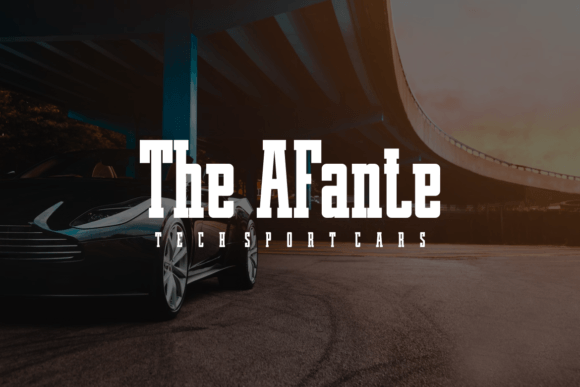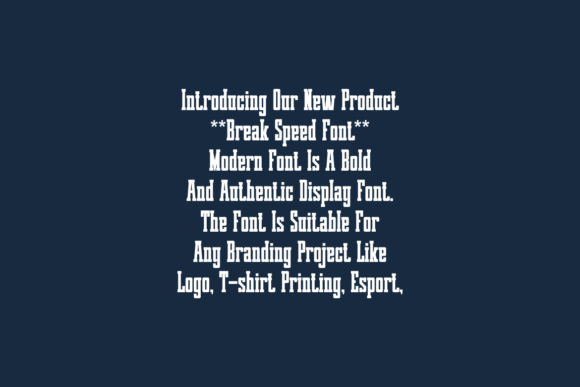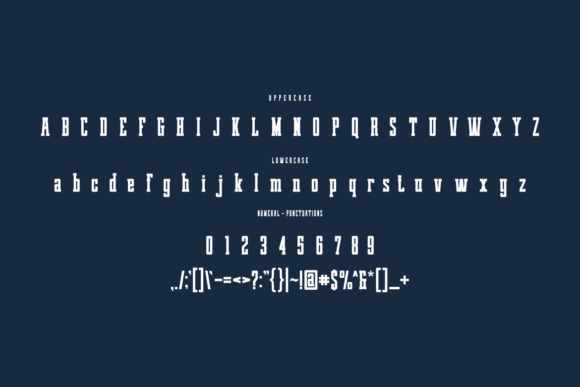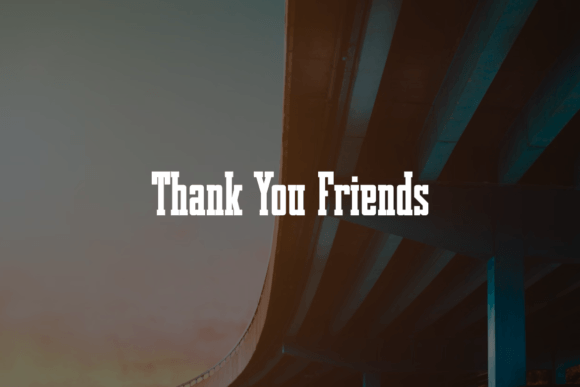
Unleash Your Creativity with BreakSpeed Font: The Ultimate Modern Display Font
Are you tired of using the same old fonts for your branding projects? Look no further! We are excited to introduce our new product, **BreakSpeed Font**, a modern display font designed to take your creative projects to the next level. With its bold and authentic style, BreakSpeed Font is perfect for any branding project, including logos, esports, and more.
What is BreakSpeed Font?
BreakSpeed Font is a carefully crafted display font that exudes confidence and modernity. Its unique design makes it stand out in a wide range of contexts, from digital platforms to print materials. Whether you’re a designer, craftsperson, or simply a DIY enthusiast, BreakSpeed Font is the perfect tool to add a touch of sophistication and style to your projects.
Key Features of BreakSpeed Font
- Bold and Authentic Style: BreakSpeed Font boasts a bold and authentic style that commands attention and makes a lasting impression.
- Versatility: This modern font is suitable for a wide range of applications, including logos, esports, posters, flyers, and more.
- Ease of Use: BreakSpeed Font is easy to read and works well in both digital and print formats.
- Unique Design: The font’s unique design elements make it stand out from the crowd, ensuring your projects look fresh and modern.
Who Can Benefit from BreakSpeed Font?
BreakSpeed Font is an excellent addition to any creative’s toolkit. Here are some professionals who can benefit from this modern display font:
- Graphic Designers: Add a touch of modernity to your branding projects, logos, and marketing materials.
- Esports Enthusiasts: Create bold and eye-catching logos, jerseys, and promotional materials for your esports team.
- Crafters and Makers: Use BreakSpeed Font to add a professional touch to your product labels, packaging, and marketing materials.
- Digital Artists: Incorporate BreakSpeed Font into your digital art projects, such as posters, flyers, and social media graphics.
Tips and Tricks for Getting the Most Out of BreakSpeed Font
- Experiment with Different Sizes: BreakSpeed Font looks great in large and small sizes, so don’t be afraid to experiment with different font sizes.
- Pair it with Other Fonts: Combine BreakSpeed Font with other fonts to create a unique and visually appealing typography.
- Use it for Headlines and Titles: BreakSpeed Font is perfect for headlines and titles, but you can also use it for body text for a bold and modern look.